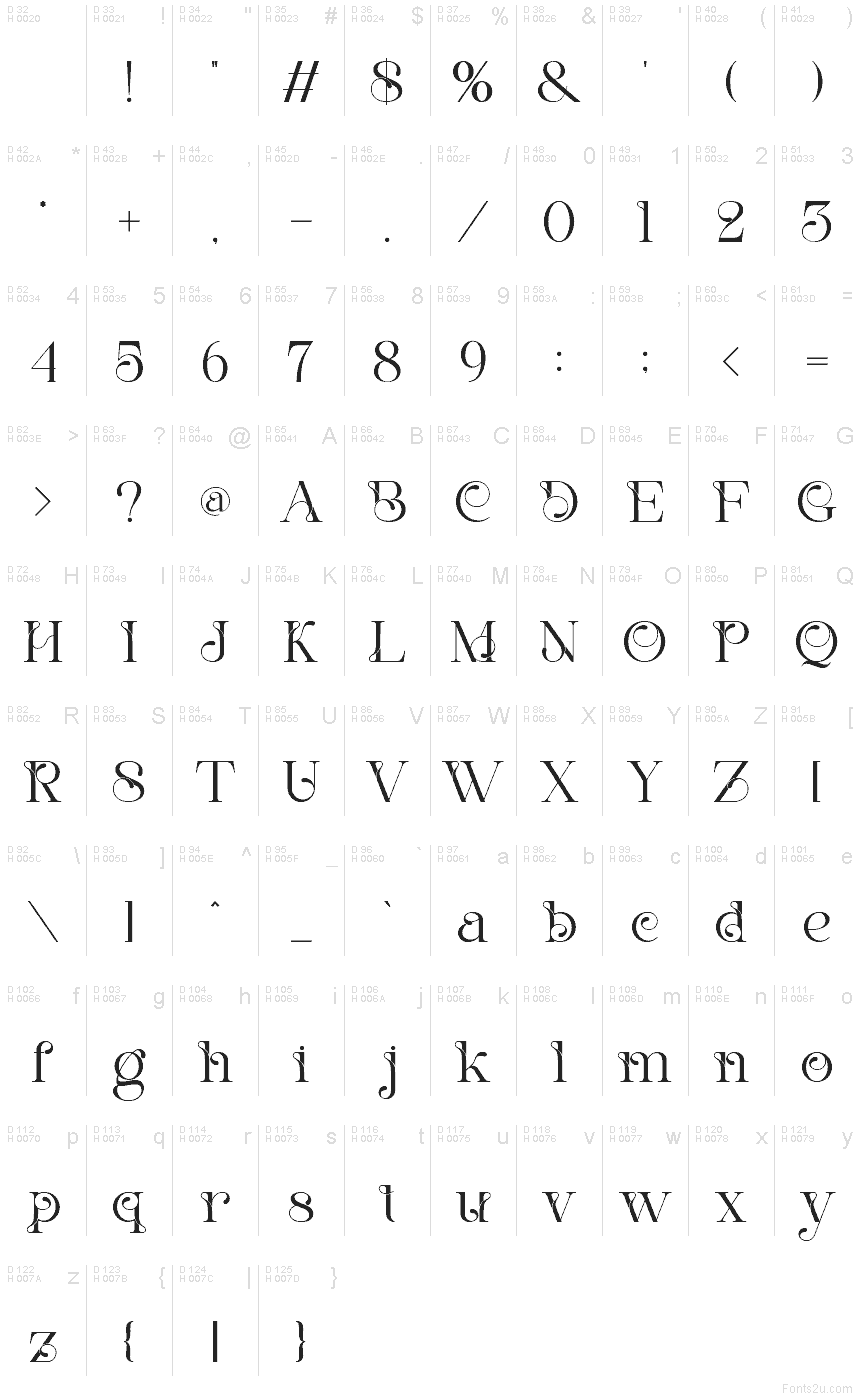
Berova Regular
Berova font by Ermedia Studio is a free vintage curly serif display font. Built around lush, sculpted curves and high-contrast strokes, it blends ornamental swirls with crisp, chiselled shapes that feel both inky and refined. The negative spaces read like carved cameos, giving headlines a dramatic, collectible quality without slipping into fussiness.
Using Berova, your work gains a boutique glow—great for boutique logos, perfume or candle packaging, wine labels, editorial titles, wedding stationery, and marquee posters. Set it large with a touch of tracking so the curls can breathe. This free font pairs beautifully with a plain, modern sans for body copy to keep the message clear and luxurious.